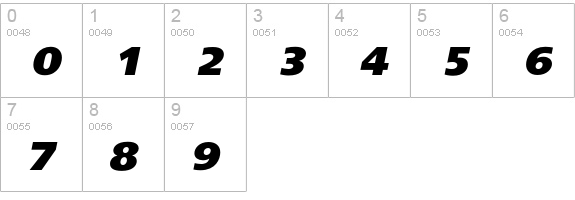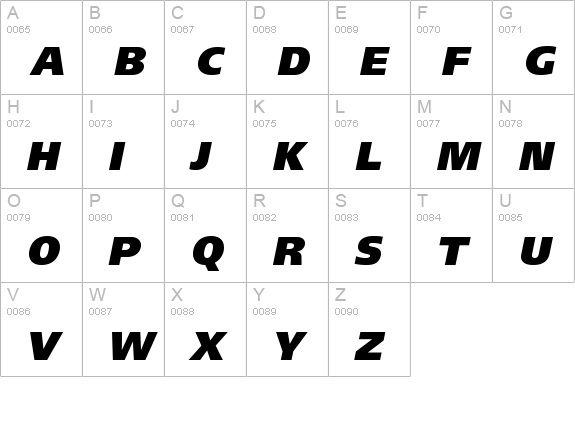
PT FreeSet Black Oblique Cyrillic Font Details
PT FreeSet Black Oblique Cyrillic is a maximum-weight, dramatic, italic variant in the PT typeface family \xE2\x80\x94 well suited to maximum-impact headlines, posters, and packaging.
The PT FreeSet Black Oblique Cyrillic font is a sophisticated and elegant typeface that adds a touch of modernity to any design project. Its sleek and stylish design makes it perfect for use in branding, advertising, and editorial design. The font features a unique oblique style that adds a dynamic and contemporary flair to your text. What makes this font even more appealing is that it is completely free to download at FontsMarket.com. This means that you can access this high-quality typeface without any cost, making it a valuable asset for designers looking to elevate their work without breaking the bank. With its bold and eye-catching appearance, PT FreeSet Black Oblique Cyrillic font is sure to make a statement in any project. Whether you're working on a poster, website, or logo design, this font will help you stand out and make a lasting impression. Download it today and unleash your creativity with this stunning and versatile typeface.